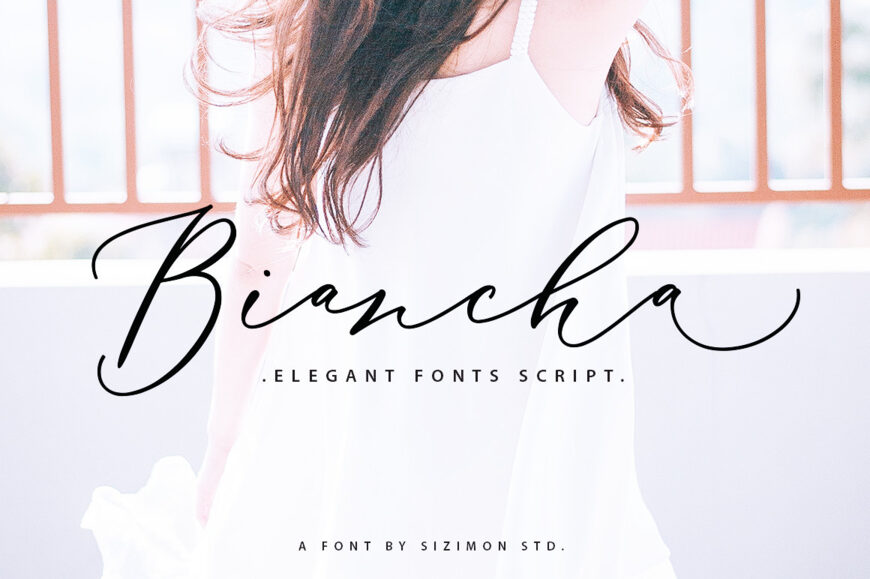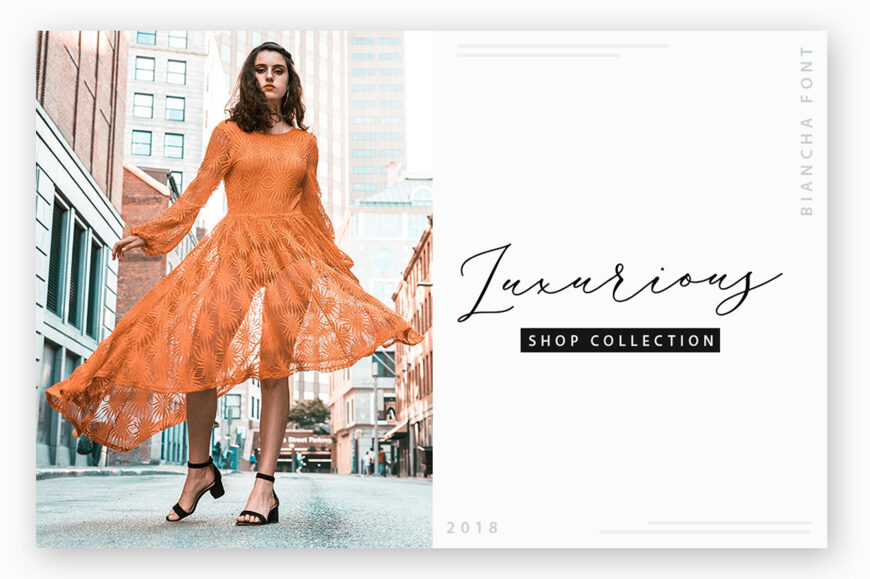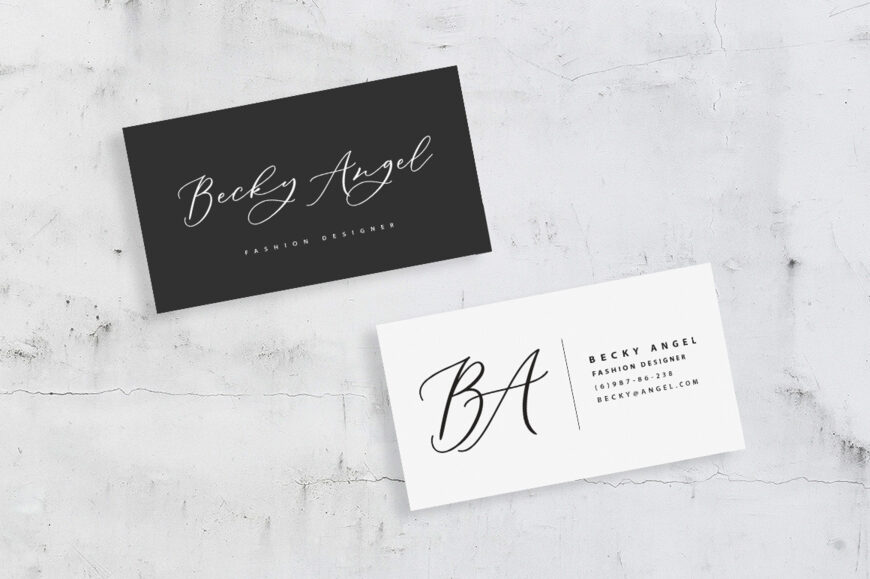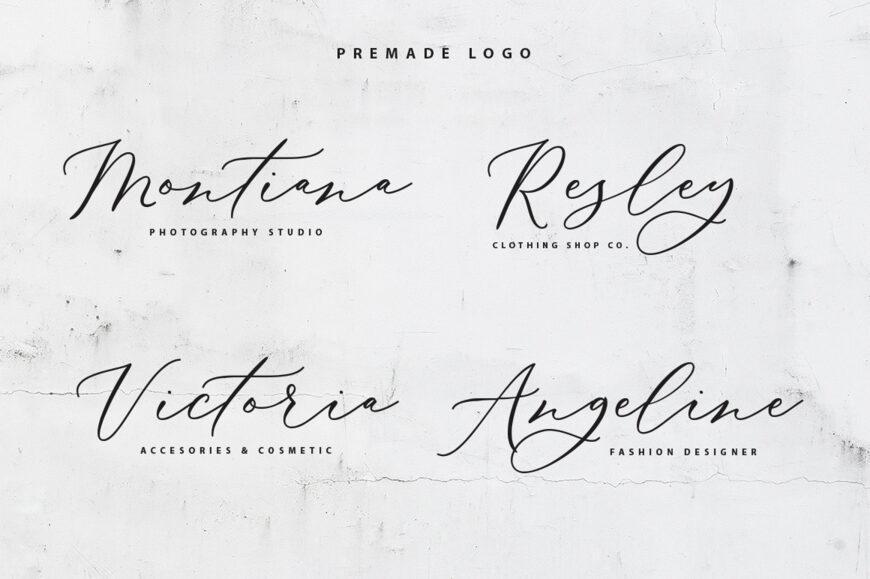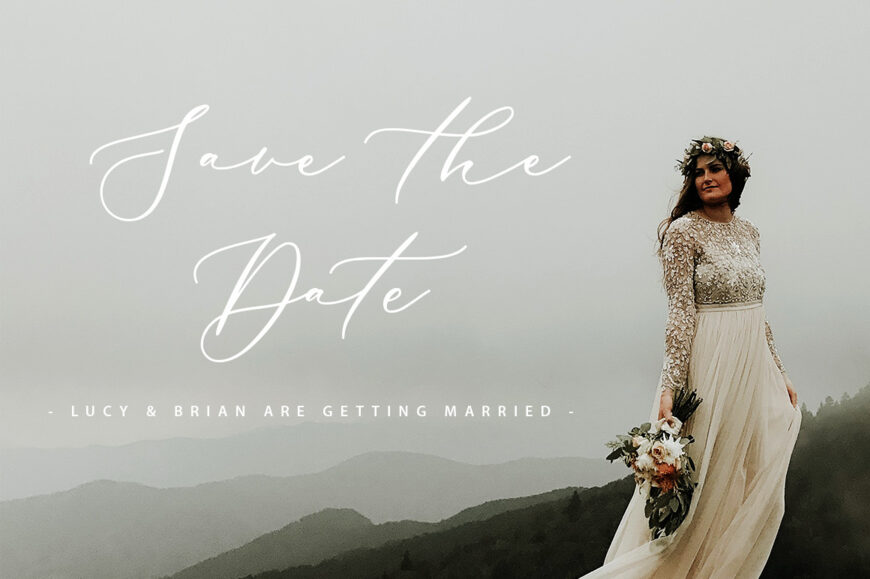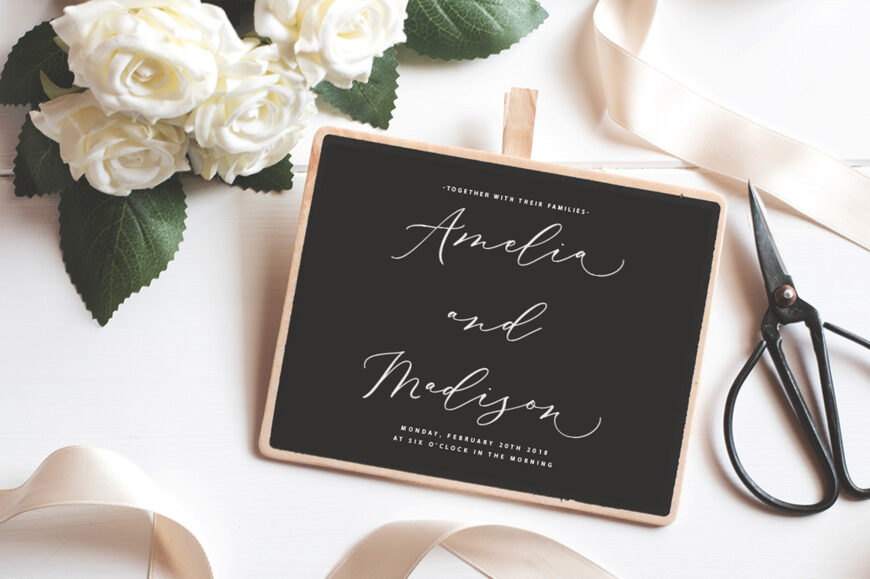
Introducing our latest product Biancha Script! Connecting script, designed to convey elegance and style. It is slender, feminine and friendly. Biancha is perfect for fashion, e-commerce brands, trend blogs, or any business that wants to appear classy and chic.